The industry of candle products relies heavily on visual branding as the main visual appeal. The packaging design becomes the first impression that determines whether a product looks premium, natural, or just ordinary. One of the most important elements often ignored is the selection of a proper font for candle packaging. The right font will be able to present a warm, calming, and luxurious nuance that can strengthen the overall brand identity.
To ensure that the design result is optimal, it is important to understand the font’s character that is ideal for candle packaging. Elegant and soft fonts will be perfect to evoke a premium sense, while handwritten or script fonts feel personal and warm. On the other hand, modern serif adds a touch of classic elegance, while a clean and easy-to-read font ensures information is conveyed clearly. The combination of these characters will produce a design that is not only esthetic but also visually effective.
This article will help you find the best font for candle packaging so that your design looks appealing, aesthetic, and classy at the same time. Each of these fonts has a distinctive character that can be tailored to your brand identity and target market, helping you create consistent and interesting visual packaging.
Belardigo is an ideal font for candle packaging, as it can evoke a sense of elegance and warmth. Its soft handwritten style creates a candle packaging design look that is premium, calming, and aesthetic. As a result, the product appears more appealing and valuable. Complete with multilingual accents, this font is flexible for various global brand concepts.
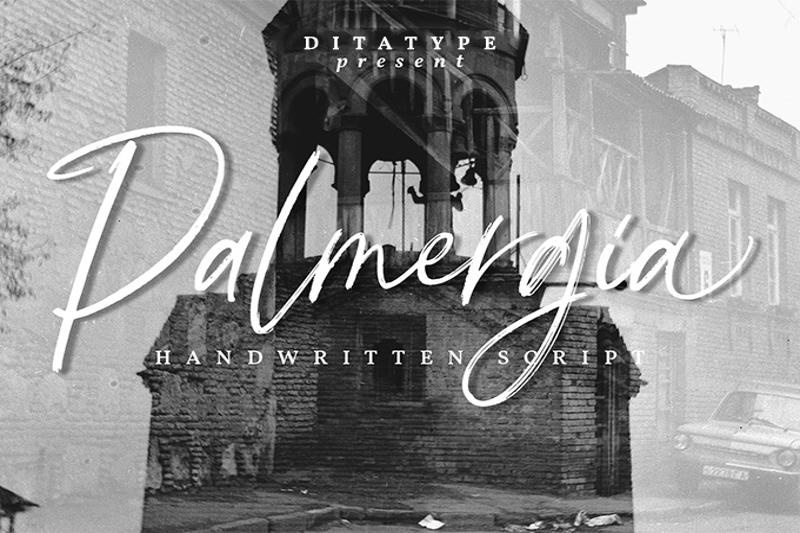
With a classy and natural handwritten style, Palmergia presents an exquisite and charming impression. This font works perfectly for candle packaging design, including premium scented, aromatherapy, gift set, and handmade soy candles. Complete with ligatures and stylistic sets, Palmergia gives flexibility for distinctive brand visuals.
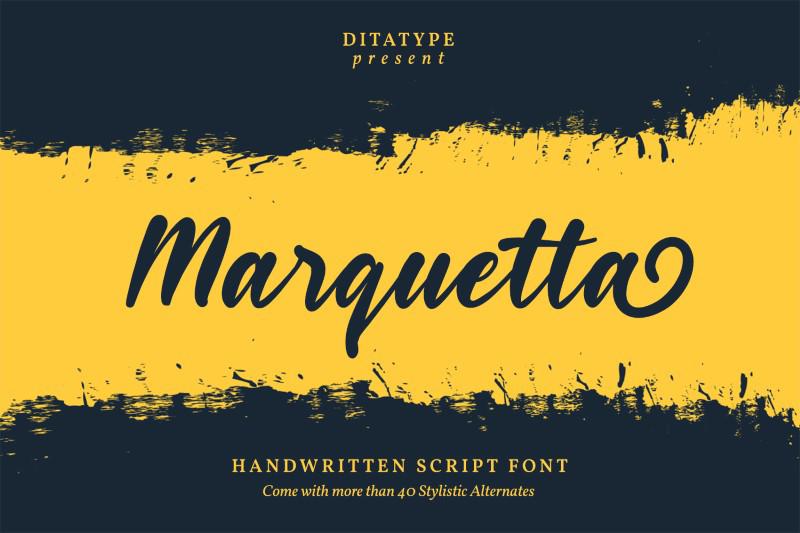
Marquetta has a classy, natural, yet modern character of handwritten font. This is a perfect font for candle packaging, especially for minimalist packaging, wedding candle favors, handmade candles, and more. Additionally, Marquetta offers beautiful ligatures that help a brand create smoother and more appealing looks.
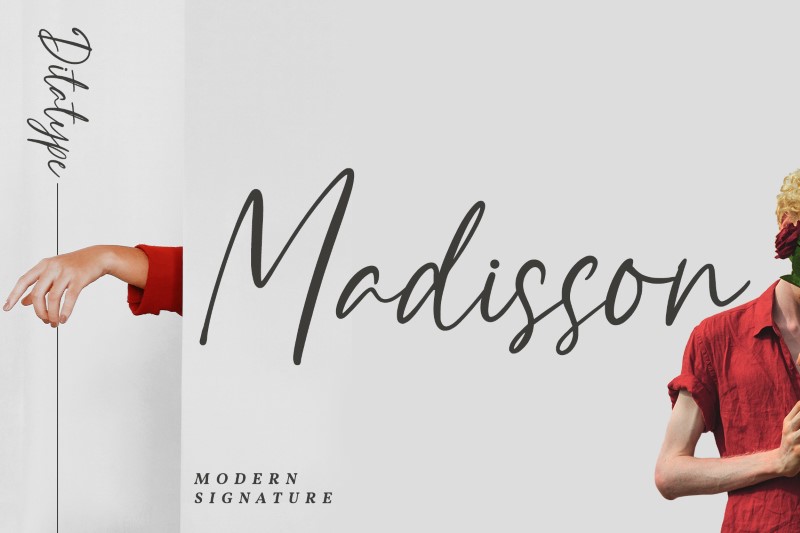
With a modern signature style that is classy and natural, Madisson presents an elegant and refined impression in a design. This font is an ideal font for candle packaging, like premium scented candles, wedding candle favors, and gift set candles with a luxurious and exclusive look. Maddison is overall a perfect font for candle packaging with its smooth writing, creating a personal and classy branding style.
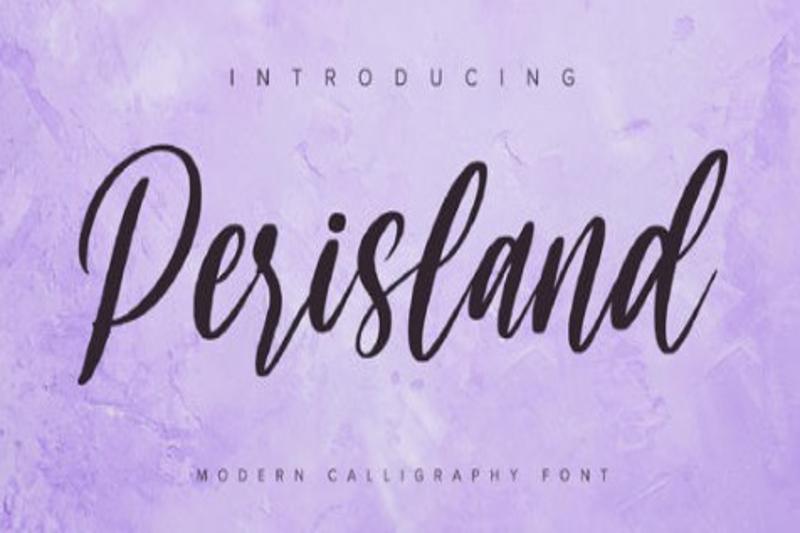
Perisland presents a stylish appearance with a modern calligraphic touch that is classy and natural at the same time. This font is perfect for various candle packaging designs and is able to enhance the product appeal. Additionally, with its smooth and flowy linestrokes, Perisland can make a brand appear warm, personal, and elegant.
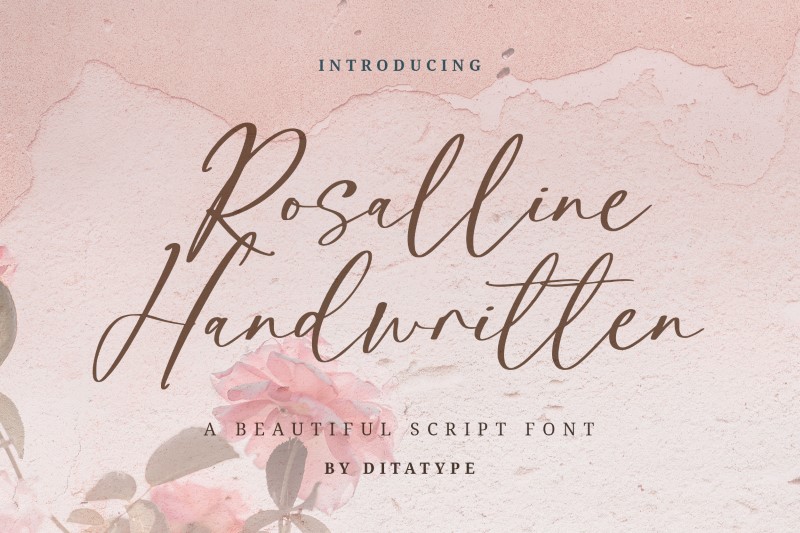
Just like its name, Rosaline Handwritten offers a natural handwriting style with smooth letter connections, creating a personal and elegant impression. The varied line thicknesses and its tall letter style give it a dynamic and characterful appearance, making it an appealing font for candle packaging, especially those aesthetic and classy ones. Rosaline Handwritten is complete with ligatures, such as those seen in the letters “ll” and ”tt,” making these letters connect in a more harmonious and artistic way.
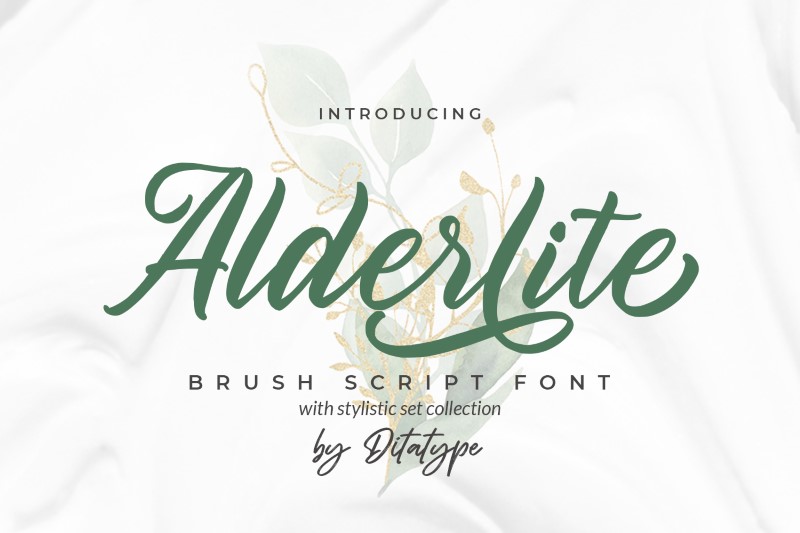
Alderlite is a font for candle packaging that presents an elegant brush style with a touch of classy and warm nuance. Its letter’s character is chic and flowy, making it perfect to strengthen the brand identity. Complete with standard ligatures and stylistic sets, Alderlite offers a more flexible and artistic letterform to enrich your design look.
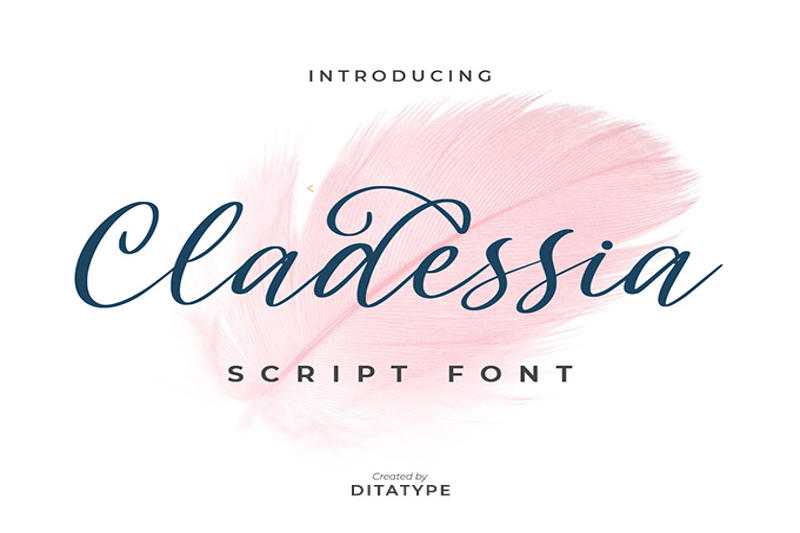
Cladessia comes with an elegant and beautiful handwriting style, making each design project look even more appealing and characterized. This font is ideal for elegant and minimalist aromatherapy label designs, wedding gift sets, and more. With its personal impression, Cladessia can strengthen the visual message as well as adding aesthetic value to your design.
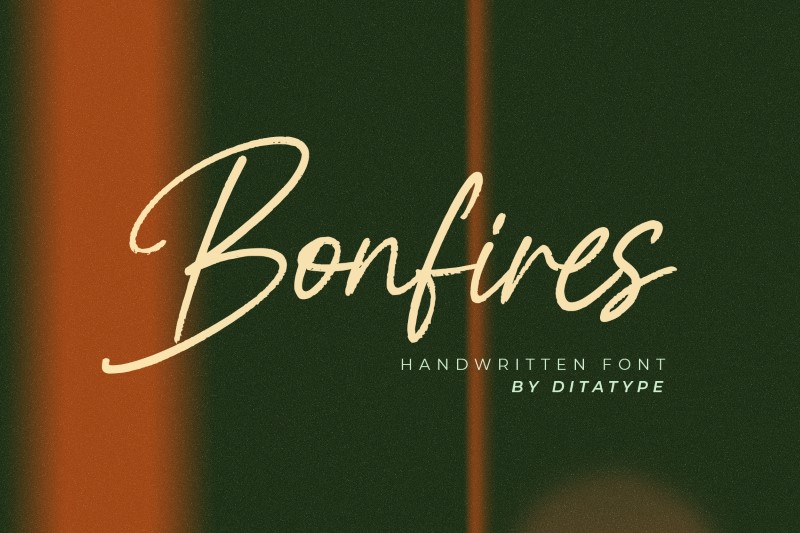
Bonfires is an elegant handwritten font with connected letter flows. This font has a smooth appearance that feels warm and natural. Formed by curved ink lines with smooth and low contrast, each of those curve details is designed proportionately, resulting in a balanced visual composition that is comfortable to read. The character is smooth and flowing, making it ideal as a font for candle packaging due to its warm and calming nature.
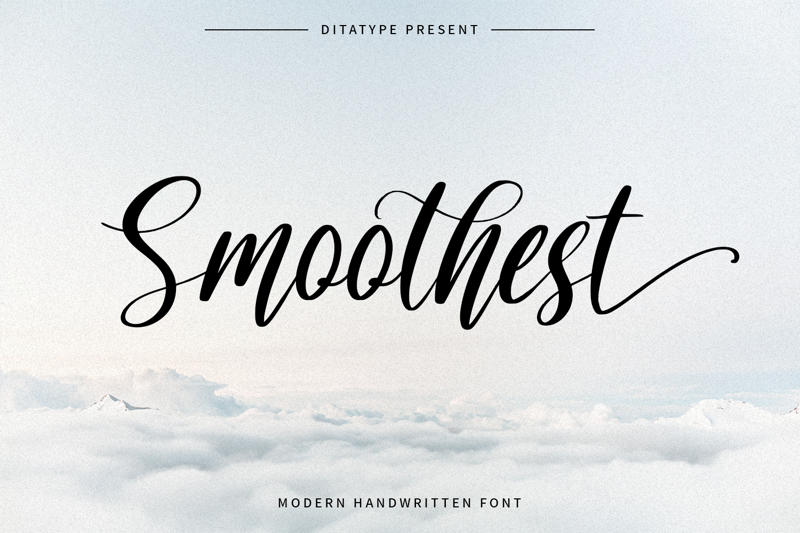
By understanding the character and impression of each of these fonts, you can create a candle packaging design that does not only look aesthetic but is also effective in attracting the consumer’s attention. Choose the best font to strengthen your candle branding and enhance your product’s selling value as much as possible.